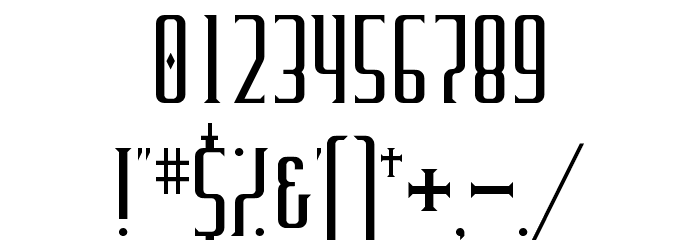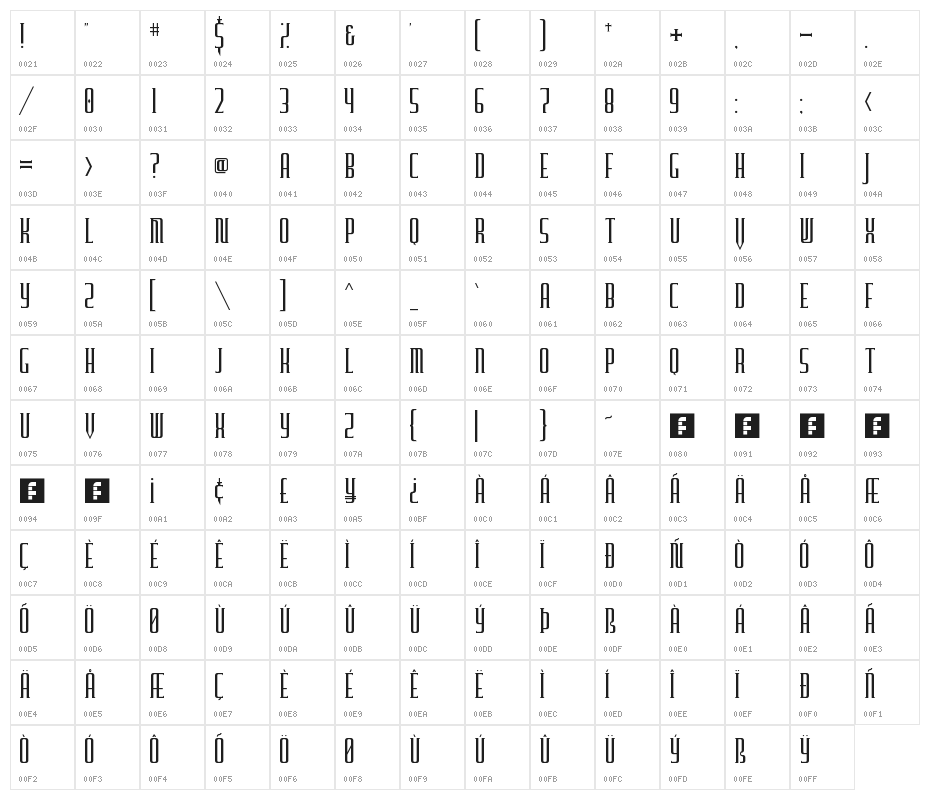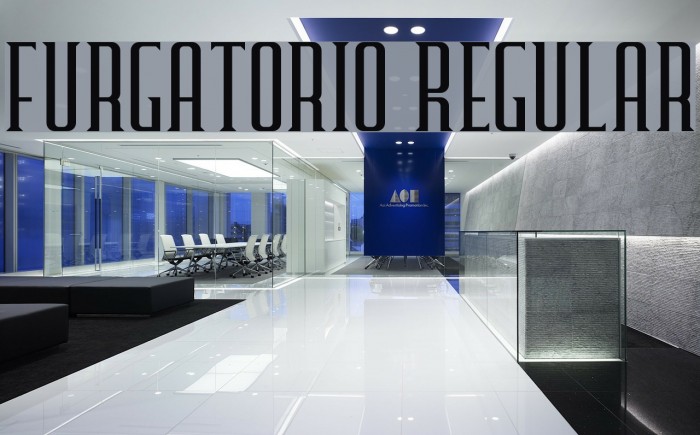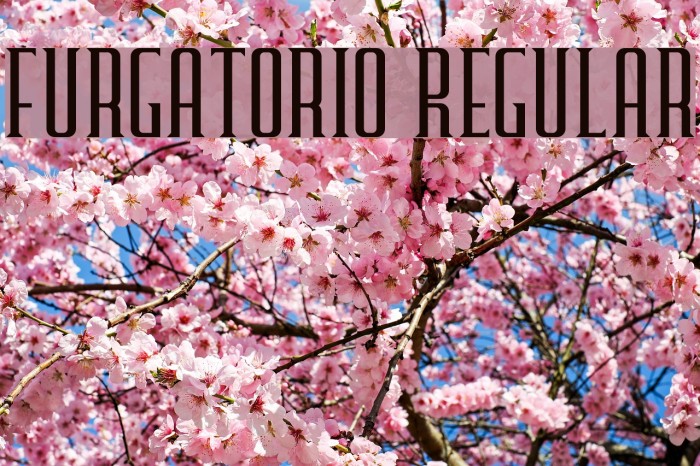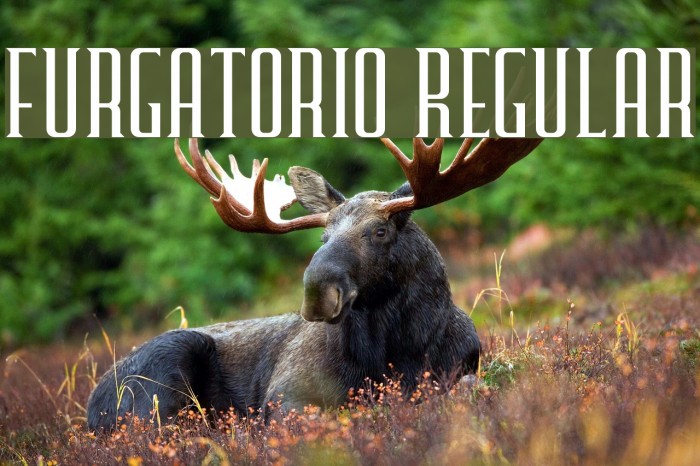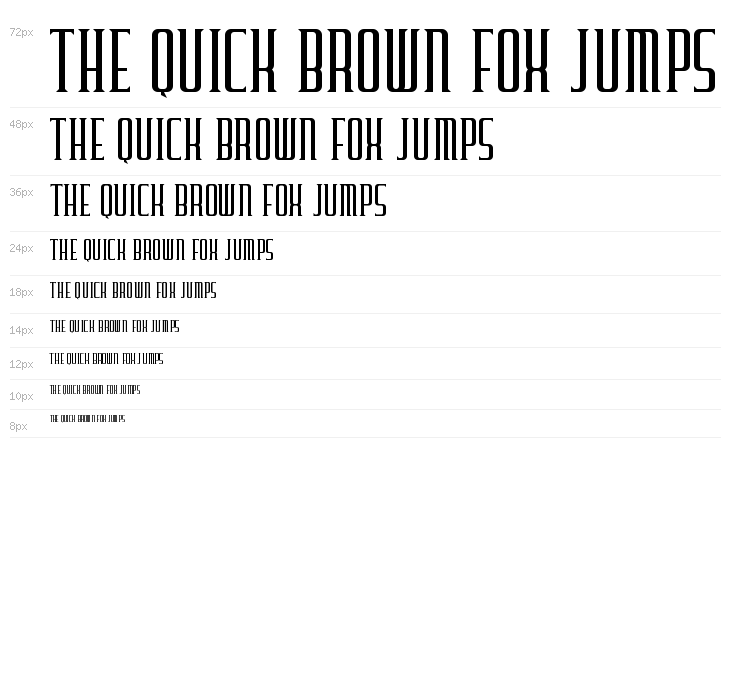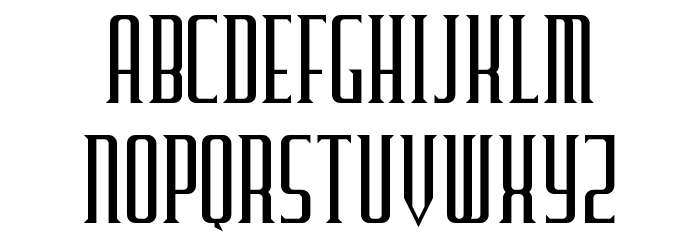
Furgatorio Regular Font
Furgatorio Regular Description
This font features a bold and striking design with elongated, narrow characters that convey a sense of modernity and sophistication. The uppercase letters are tall and slender, with sharp angles and clean lines that create a sleek appearance. The lowercase letters maintain the same narrow structure, ensuring consistency throughout. Numbers are similarly styled, with a uniform height that complements the overall aesthetic. Special characters are distinct and well-integrated, adding to the font's versatility. The font's unique style makes it suitable for projects that require a contemporary and impactful look.